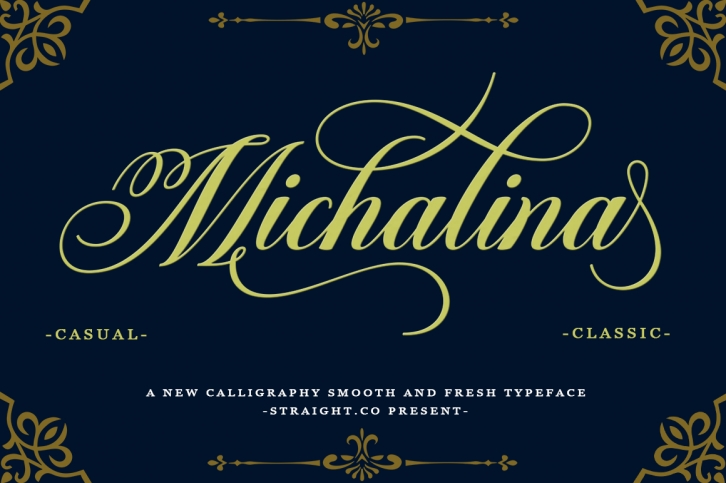
Michalina is a trendy and unique font with an authentic style. It was designed by Straightco and it's a great choice for creative people who need such a font. It was released on September 1, 2019 and the file size is 7.42 MB. Michalina will add an organic vibe to any design idea!